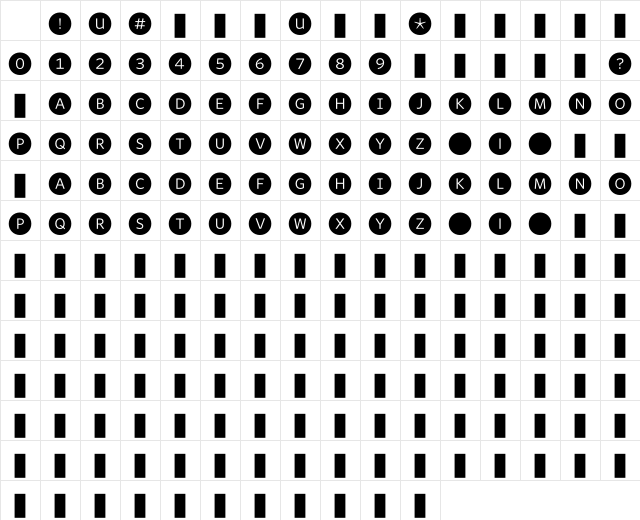
WhitneyIndexBlack softens its letterforms with rounded terminals, giving it an approachable, friendly quality that works well in consumer-facing and digital contexts.